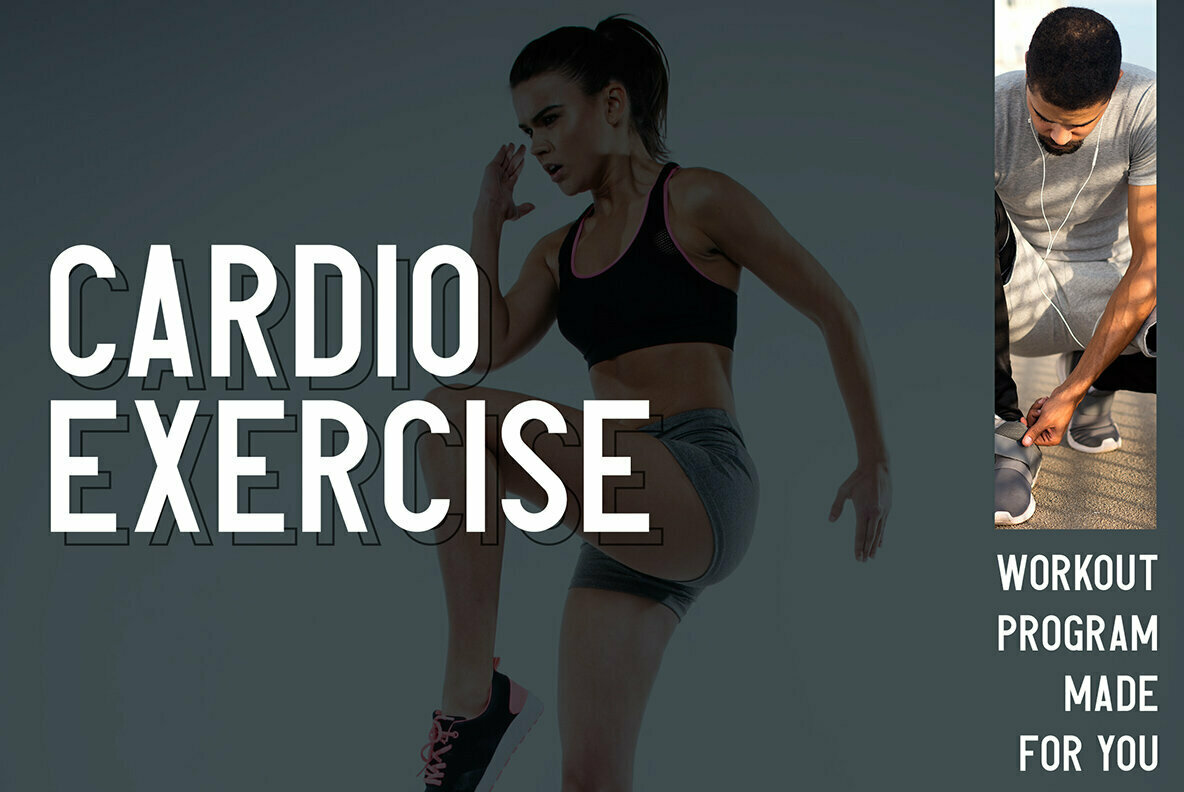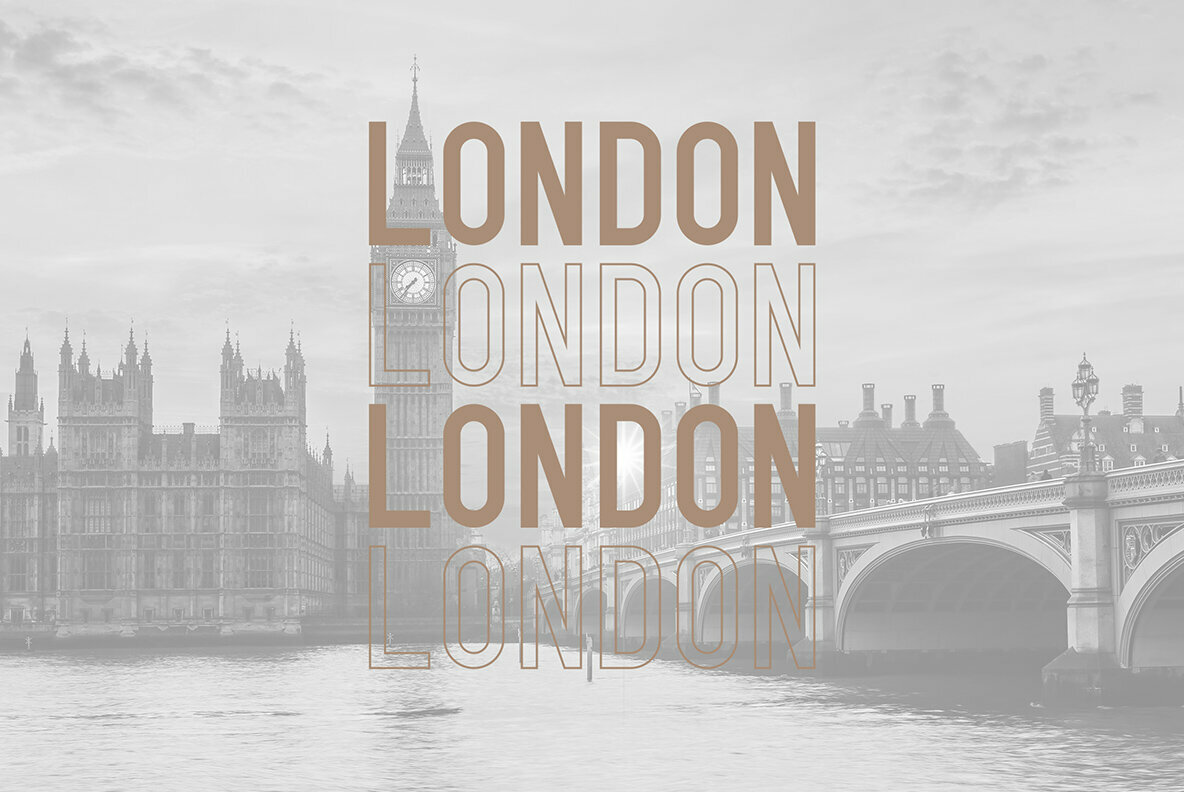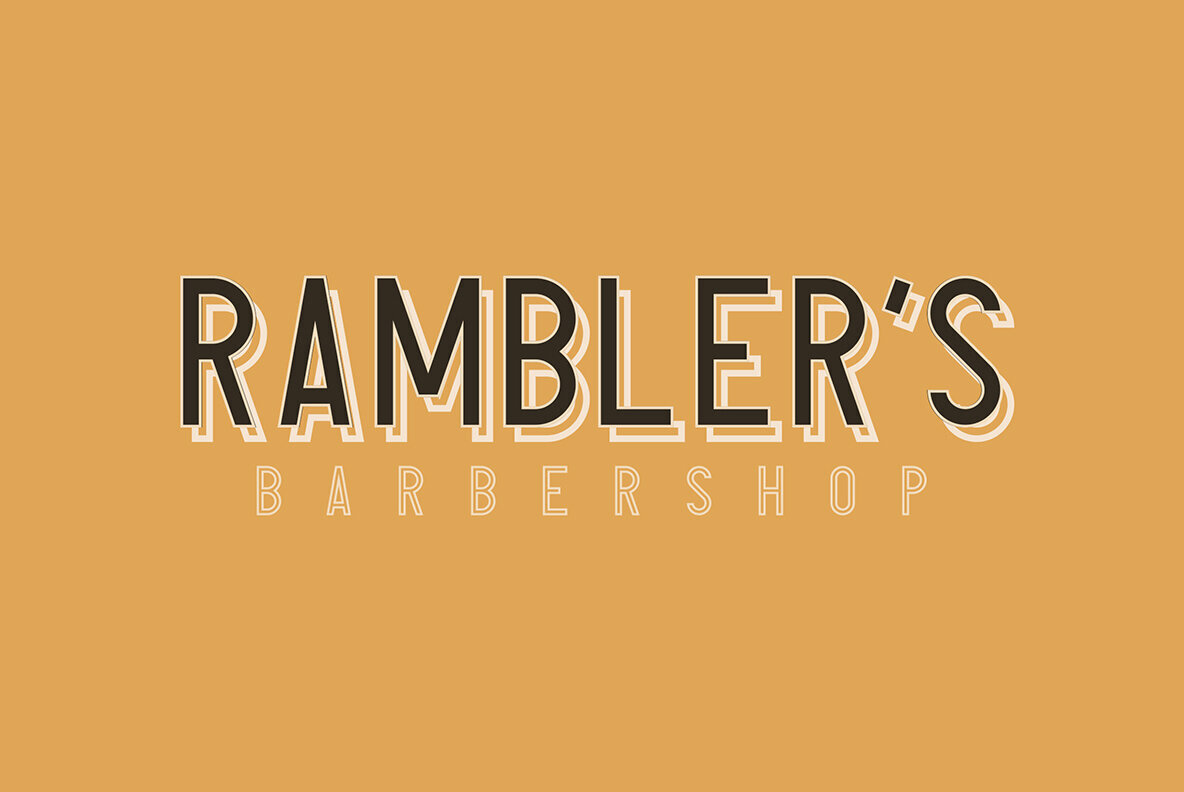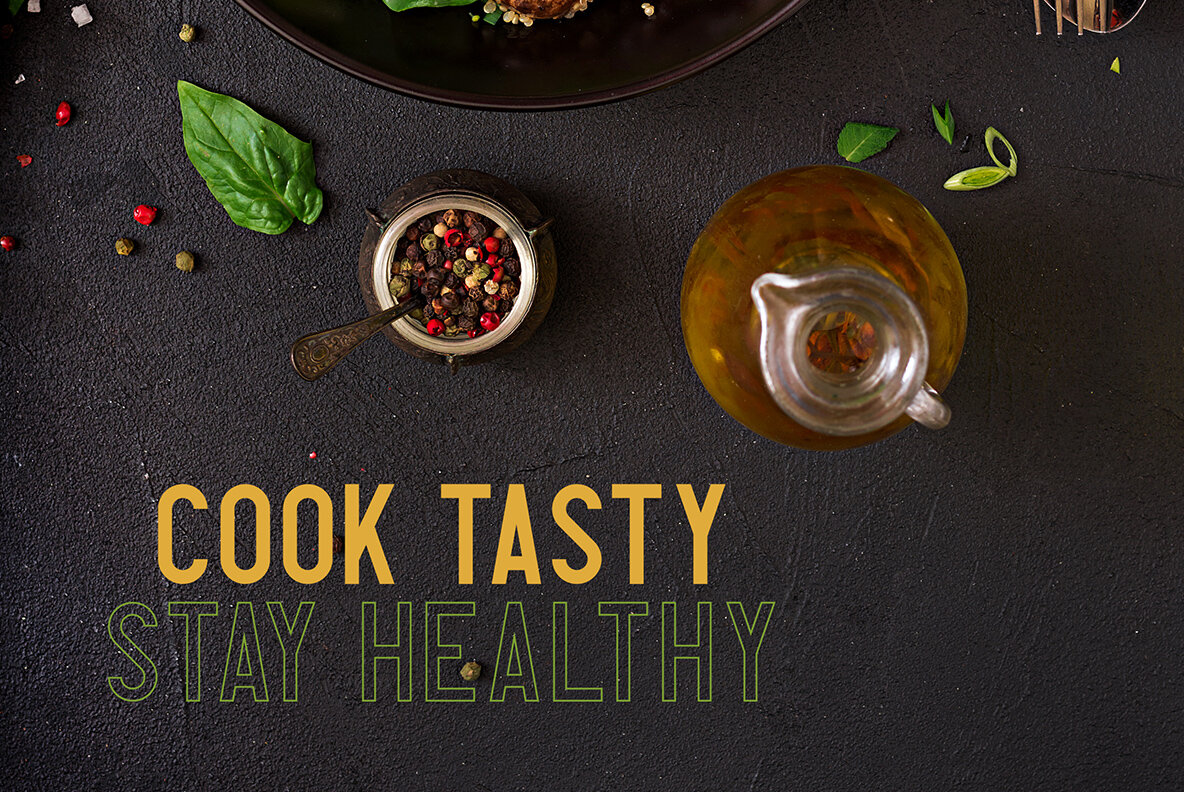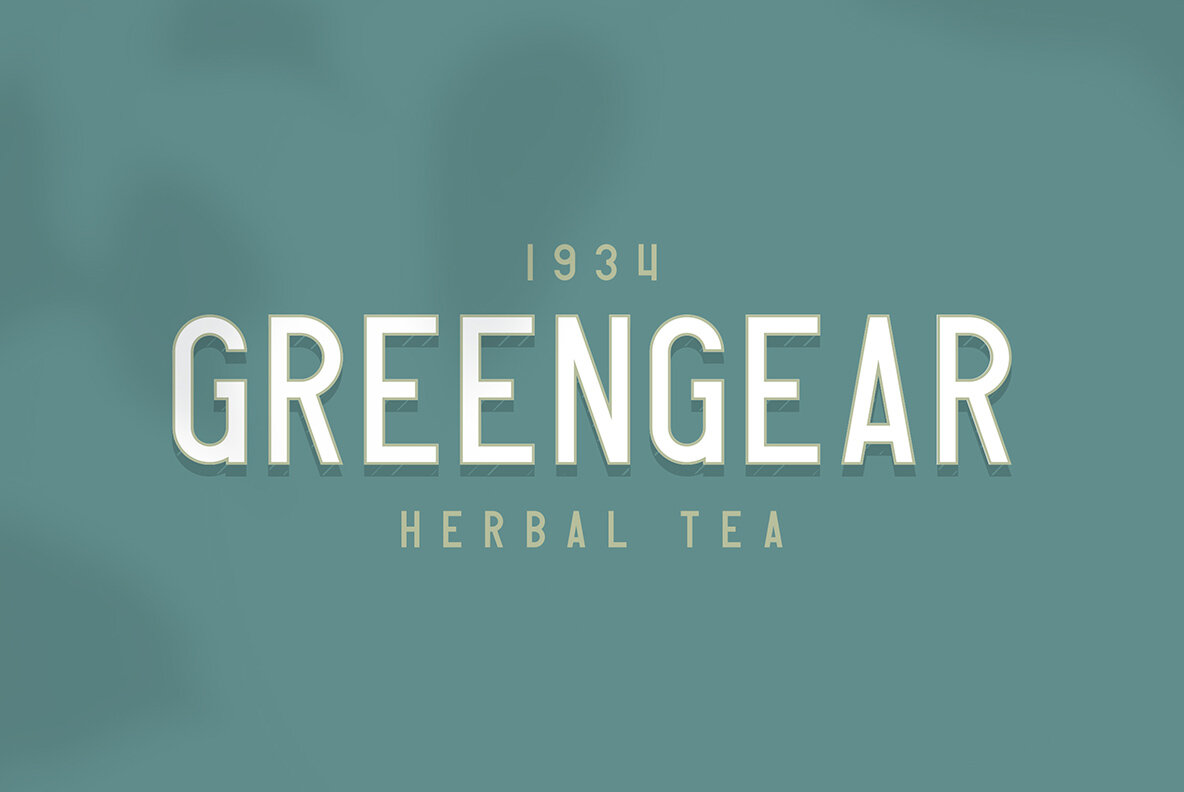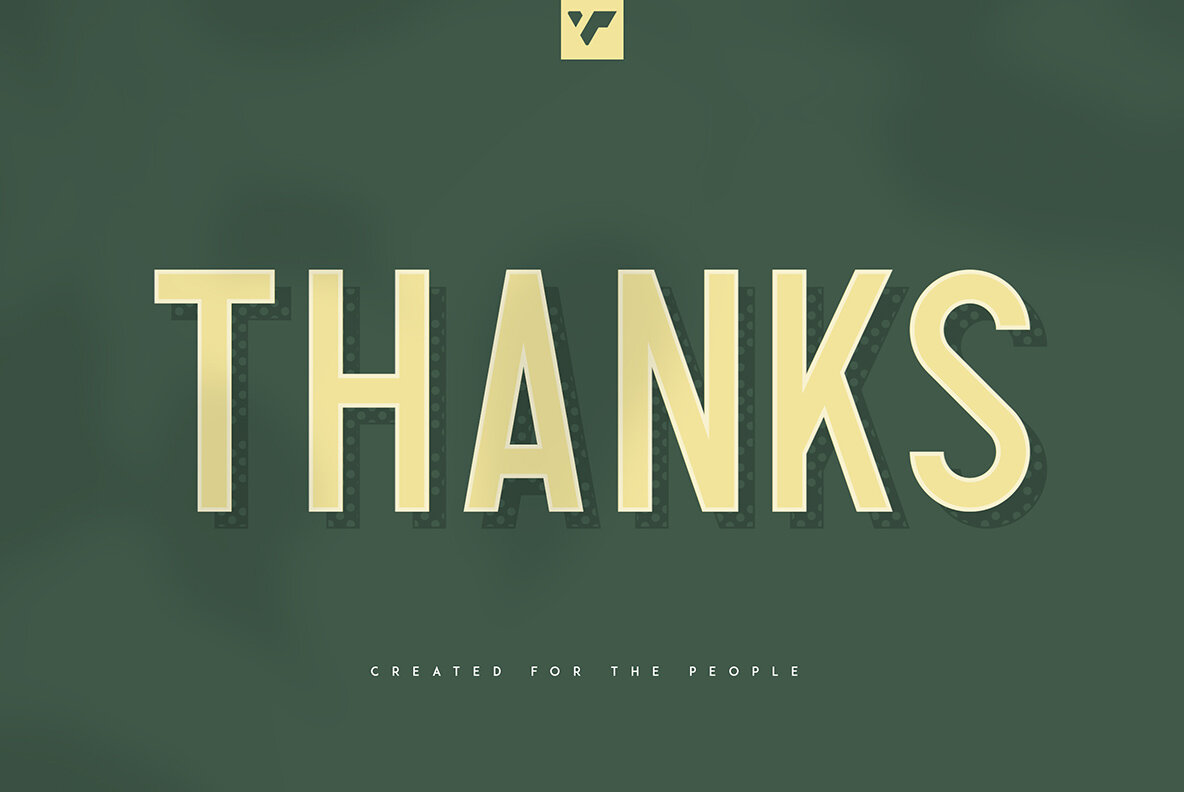
Avoqado Font
Avoqado
Avoqado Dots
Avoqado Lines
Avoqado Outline
Avoqado Outline Two
Avoqado captures the essence of retro design wrapped in a versatile sans serif format. This typeface, with its bold construction, offers an audacious presence in a variety of contexts—from large-scale branding to more intimate packaging designs. Whether elevating a magazine header or enhancing the packaging experience, Avoqado is a stylish choice for any project aiming for a retro touch. Please note that mockups and backgrounds are not part of the package.Avoqado: Bold Sans Serif With Retro Flair